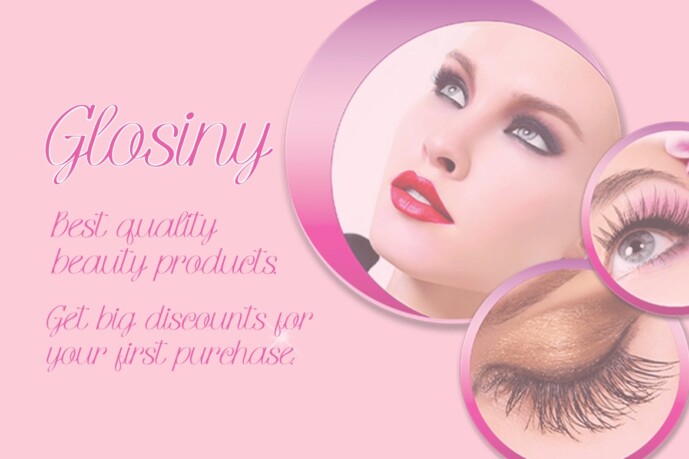
Best Qualifier Font
Designer: dellux_design
Best Qualifier Font is a unique font. Can make it easier to convey the message in your design. Use for awesome display, labeling, clothing, movie scene, poster, movie title, gigs, album covers, logos, and much more.